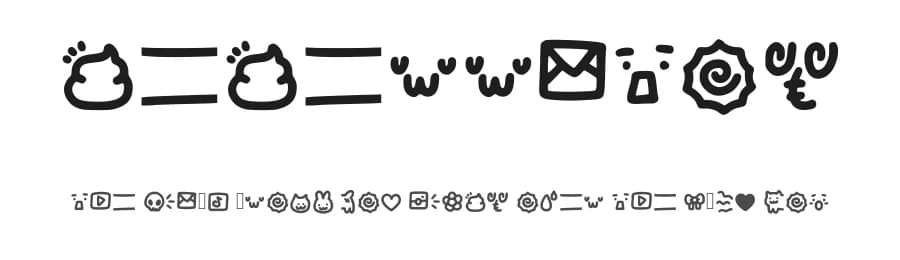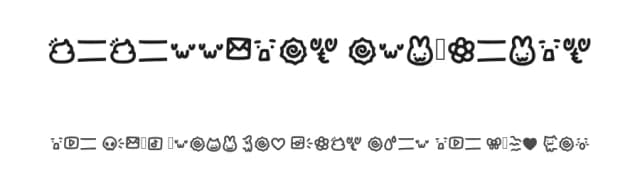
About Peperritos Font
Peperritos is a font for personal free use. handwritten with y2k kawaii aesthetic
It also contains a secondary fountain with ornaments.
Peperritos Font is a script font that shines as a display or heading face. Pair it with a clean sans-serif or serif font for body text β the contrast creates a clear hierarchy while the two styles stay balanced and easy to read.